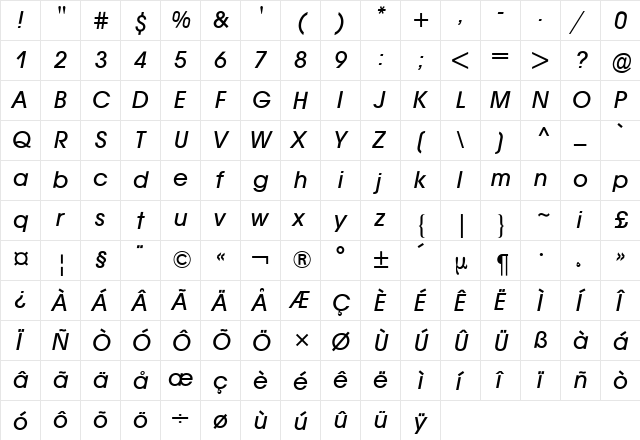
Avant Garde BQ Roman Italic Font Preview
Avant Garde BQ Roman Italic
Avant Garde BQ Roman Italic Font Details
| Style | Roman Italic |
Design Context for Avant Garde BQ Typeface
Avant Garde BQ is a composed and adaptable typeface that performs quietly and consistently across a wide range of design contexts. The dynamic lean of this cut emphasises speed and emphasis in any layout.
Pro Tip: Try Avant Garde BQ for annotation and caption copy alongside an upright companion — the contrast in angle creates a dynamic but ordered typographic system.